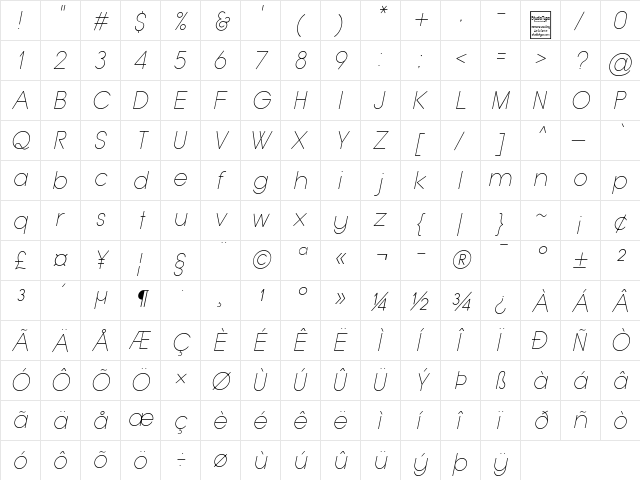
Typo Grotesk Thin Italic
Design Context for Typo Grotesk Thin Typeface
Typo Grotesk Thin takes a clean, functional approach — its unadorned letterforms prioritise legibility and work reliably across screen and print environments. The slanted form adds forward momentum and visual energy. The delicate stroke weight brings airiness and refinement to layouts.
Ideal for fashion and beauty branding, minimal editorial layouts, and premium digital experiences.
Font Pairing: Pair Typo Grotesk Thin with a medium or bold serif for headlines — the weight contrast creates an elegant, high-end feel.
Pro Tip: Avoid using Typo Grotesk Thin at very small sizes where its slender strokes can disappear. It performs best at medium to large sizes.